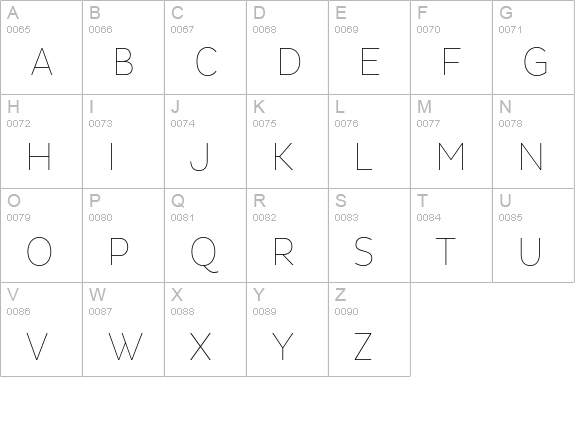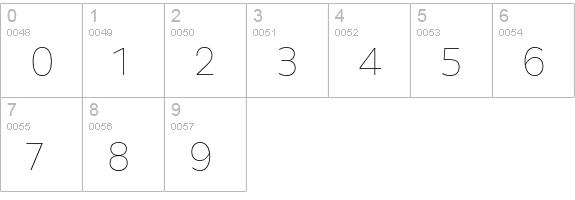
Pluto Sans Cond Thin Font Details
Pluto Sans Cond Thin is a delicate, low-contrast, condensed-width variant in the Pluto typeface family \xE2\x80\x94 well suited to fashion editorial, minimal branding, and high-contrast display.
Pluto Sans Cond Thin font is a sleek and modern typeface that exudes elegance and sophistication. With its thin and condensed design, this font is perfect for creating a minimalist and contemporary look in your designs. The clean lines and subtle curves of Pluto Sans Cond Thin make it ideal for use in a variety of projects, from branding and advertising to editorial design and more. What's even better is that Pluto Sans Cond Thin font is available for free download at FontsMarket.com. So you can easily add this stylish font to your collection without breaking the bank. Whether you're looking to elevate your typography game or simply want to experiment with a new typeface, Pluto Sans Cond Thin is a versatile choice that is sure to make a statement in any project. Download it today and start creating beautiful designs with this stunning font.